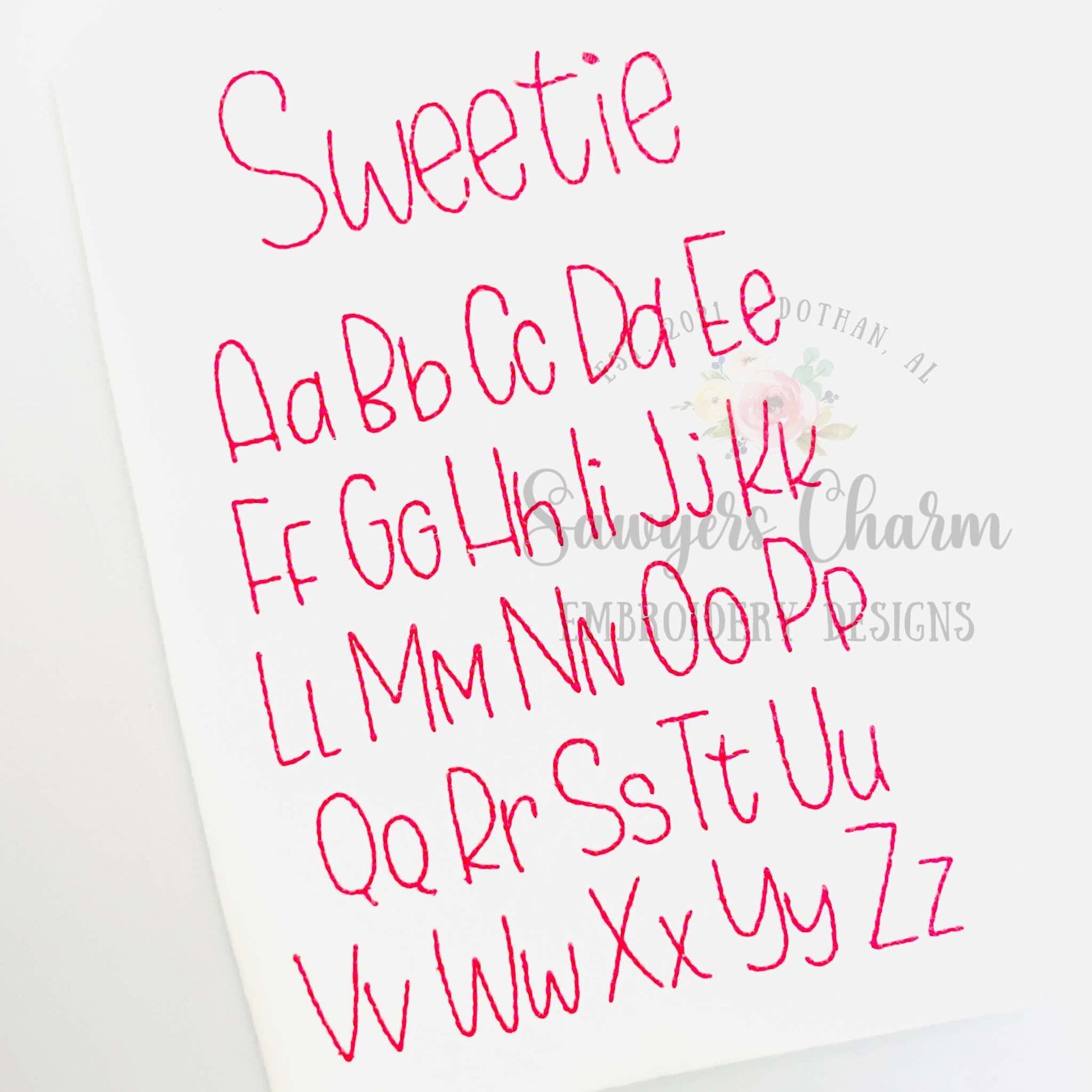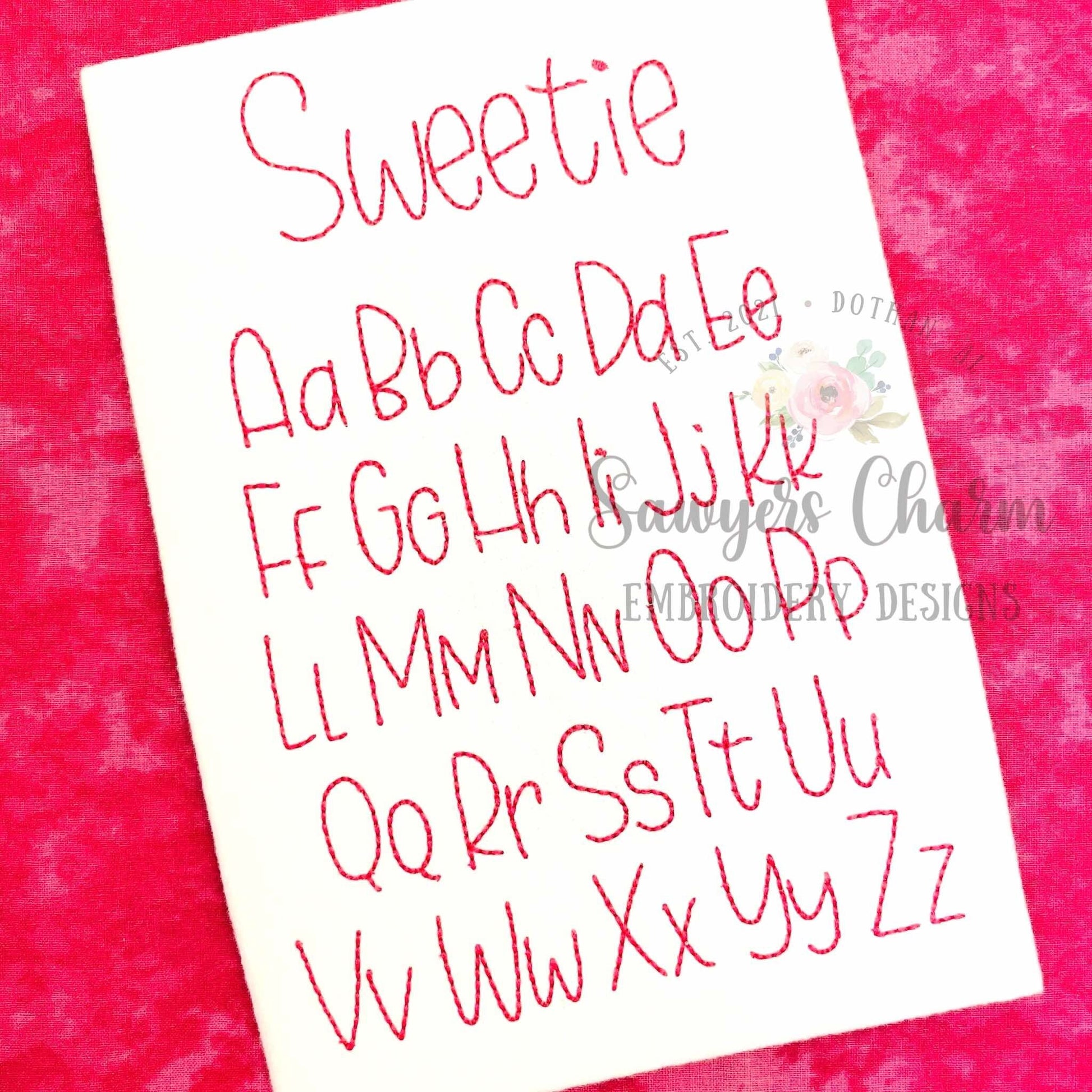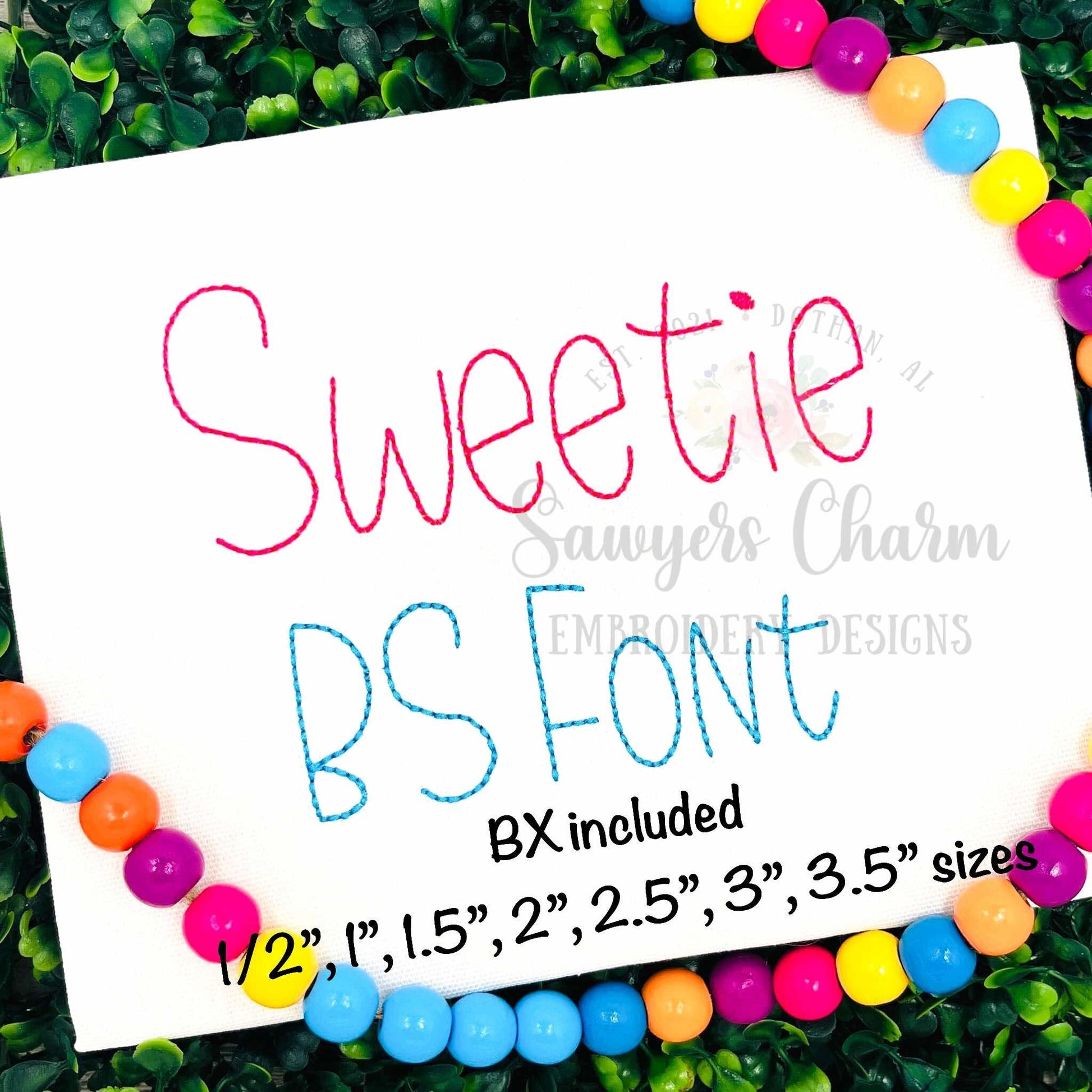
Sweetie Bean Stitch machine embroidery font, lower & uppercase letters, 7 sizes, BX included, perfect for monograms
This embroidery font comes in 7 sizes.....1/2", 1", 1.5", 2", 2.5", 3", and 3.5". This is a bean stitch font with uppercase and lowercase letters.